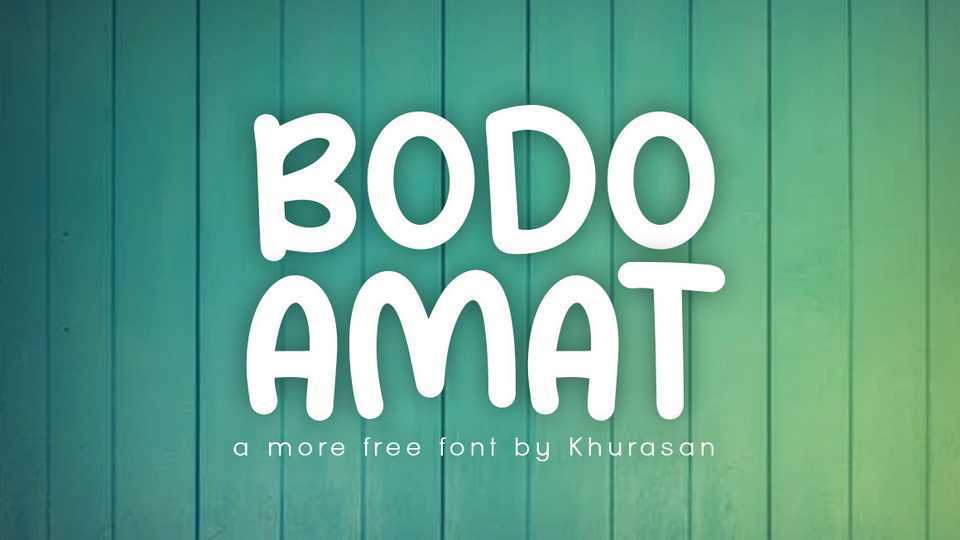
Download Bodo Amat font, a simple and friendly handwritten typeface. Bodo Amat font is perfect for posters, logos, magazines, cover books, banners, and much more.